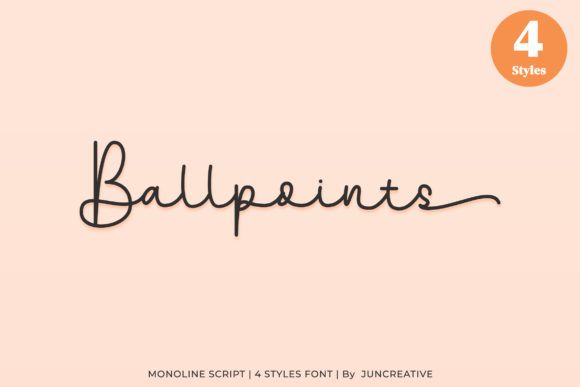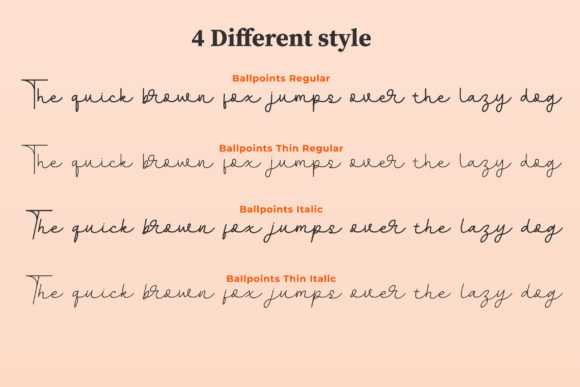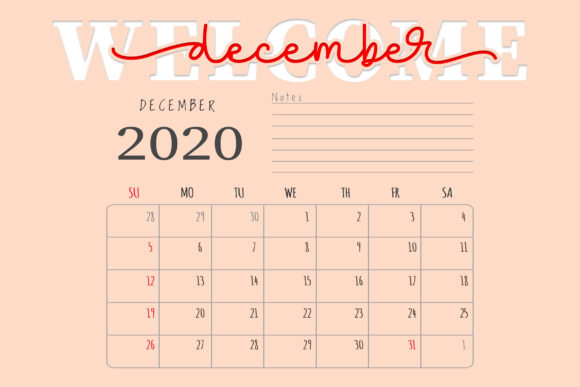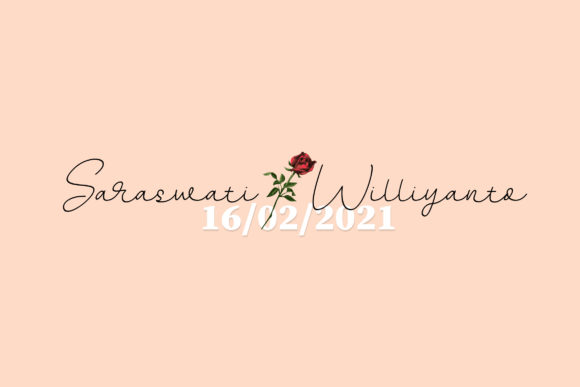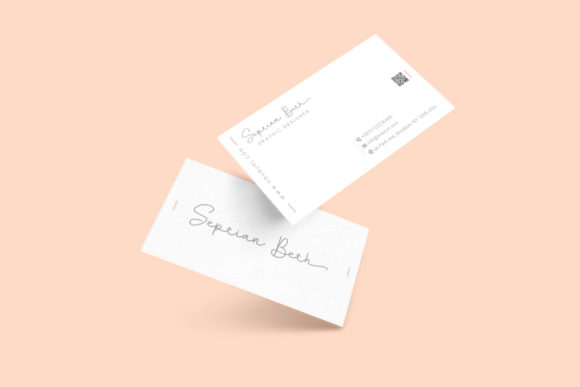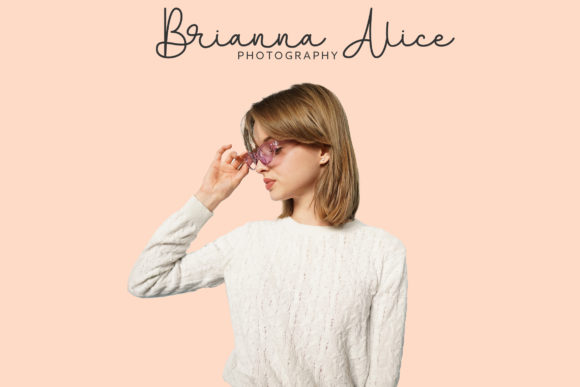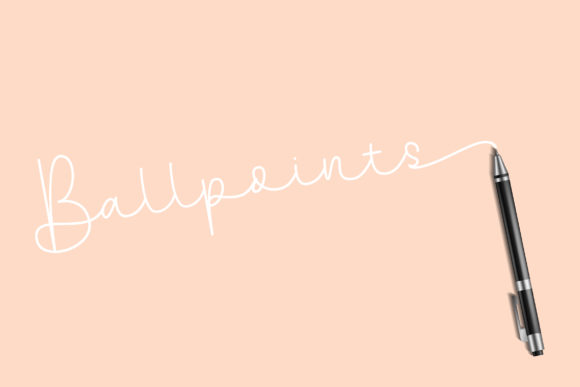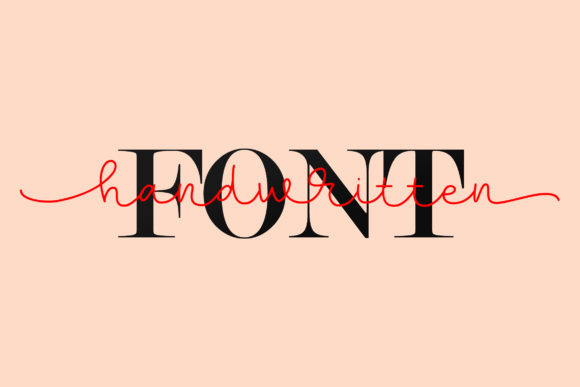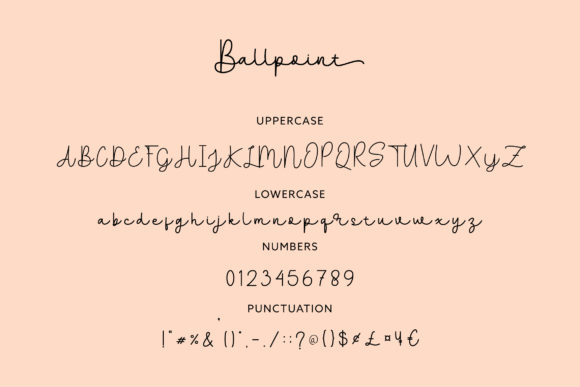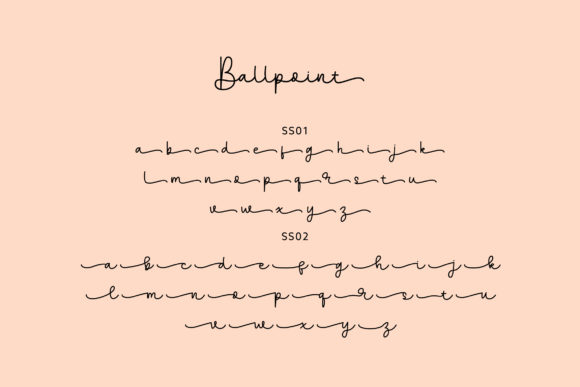
Ballpoints Font
About Ballpoints Font
Ballpoints is an incredibly distinct, delicate and timeless handwritten font. It looks stunning on wedding invitations, thank you cards, quotes, greeting cards, logos, business cards and every other design which needs a handwritten touch. This font is PUA encoded which means you can access all of the glyphs and swashes with ease!